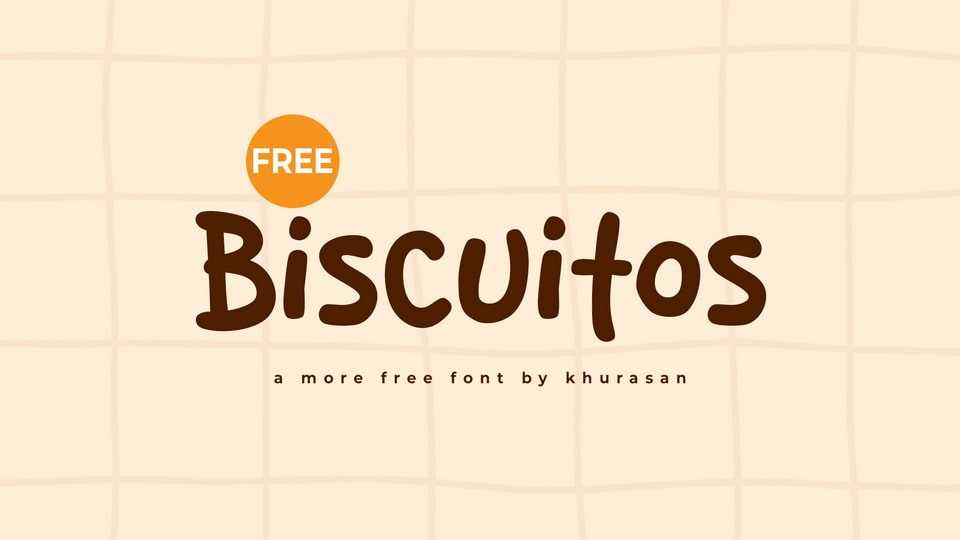
Download Biscuitos font, a warm and playful hand-drawn typeface that captures the cozy, homemade feel of a fresh batch of cookies. With its chunky, soft strokes and slightly irregular shapes, Biscuitos radiates friendliness and charm.